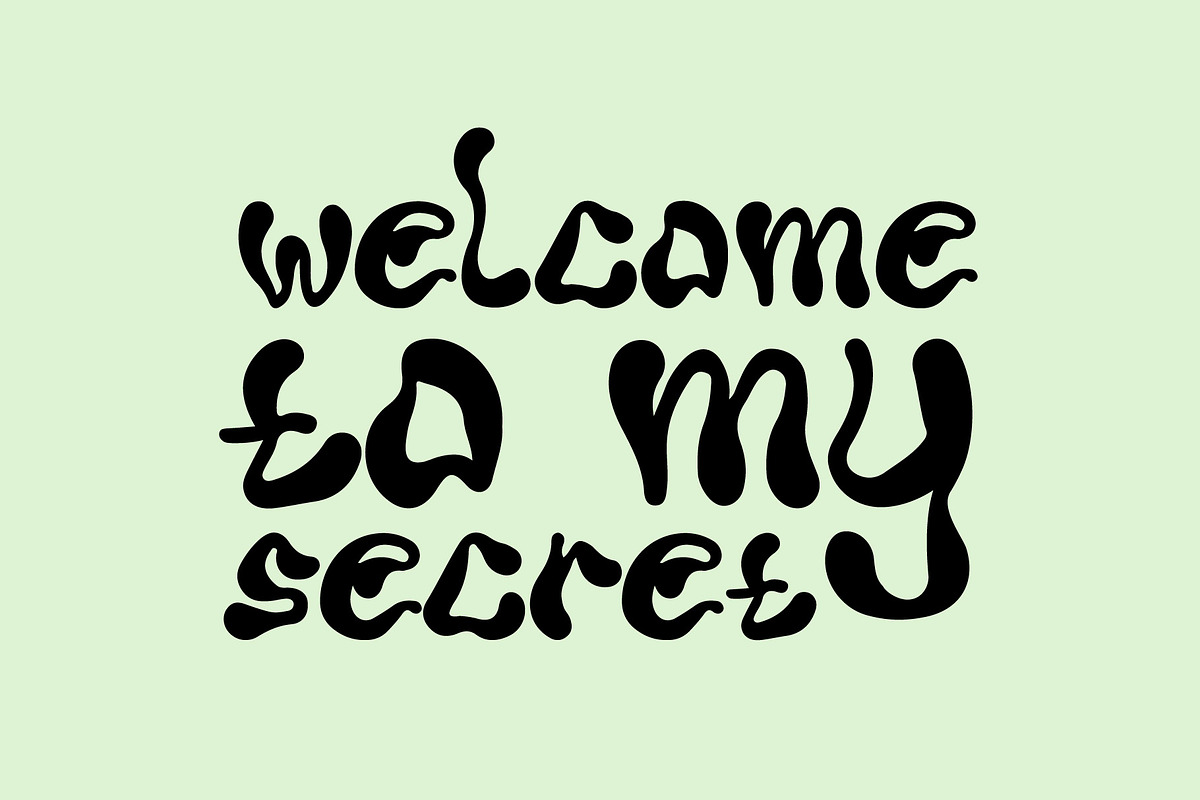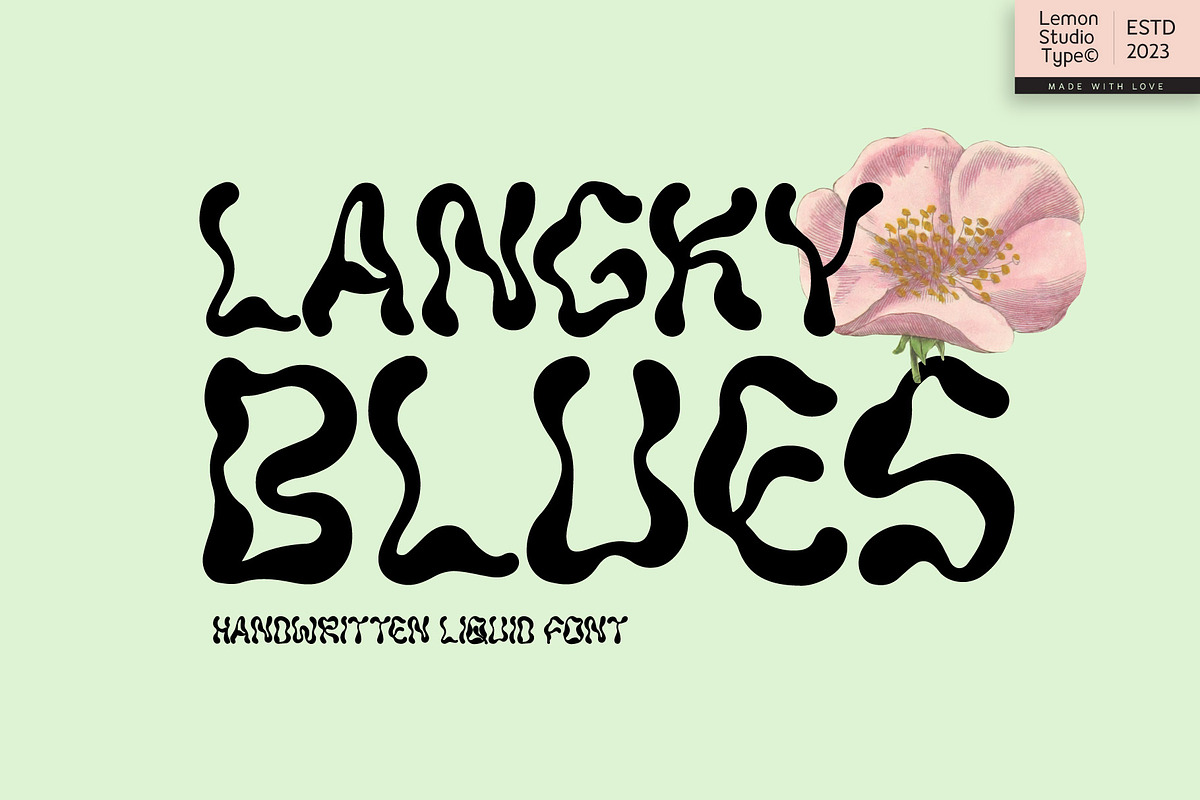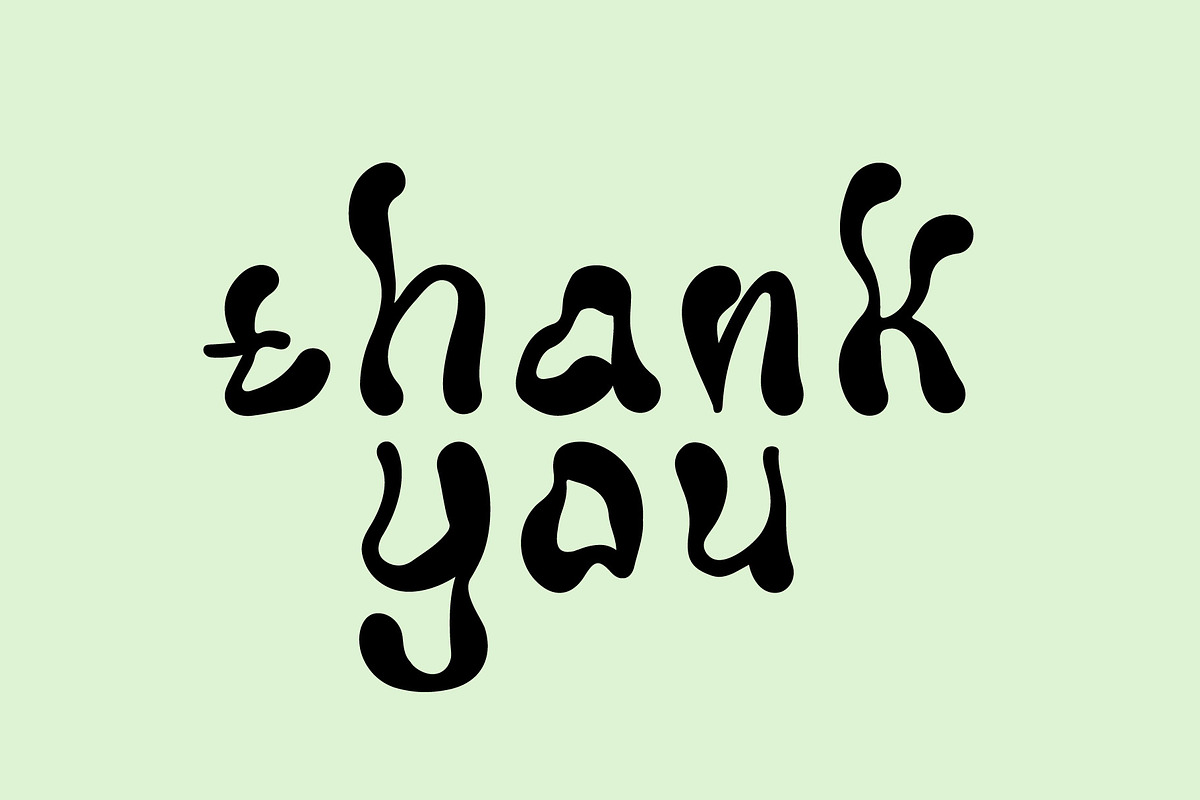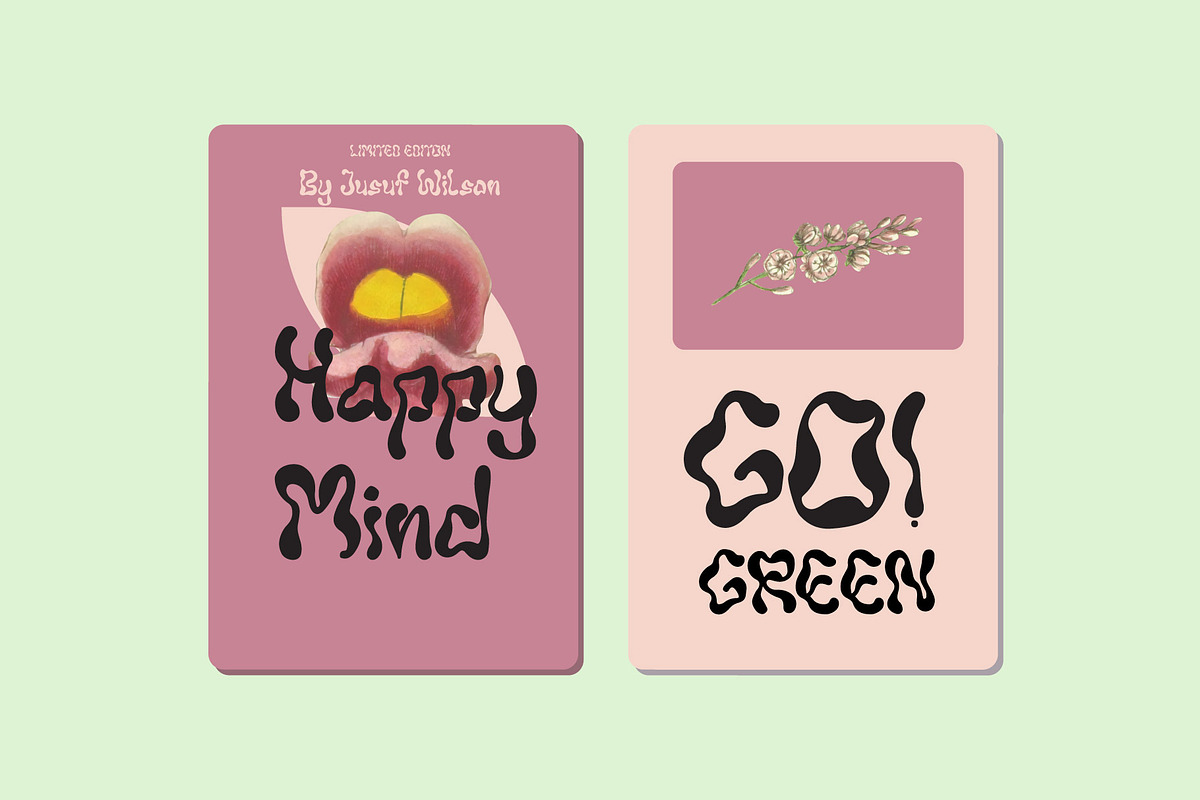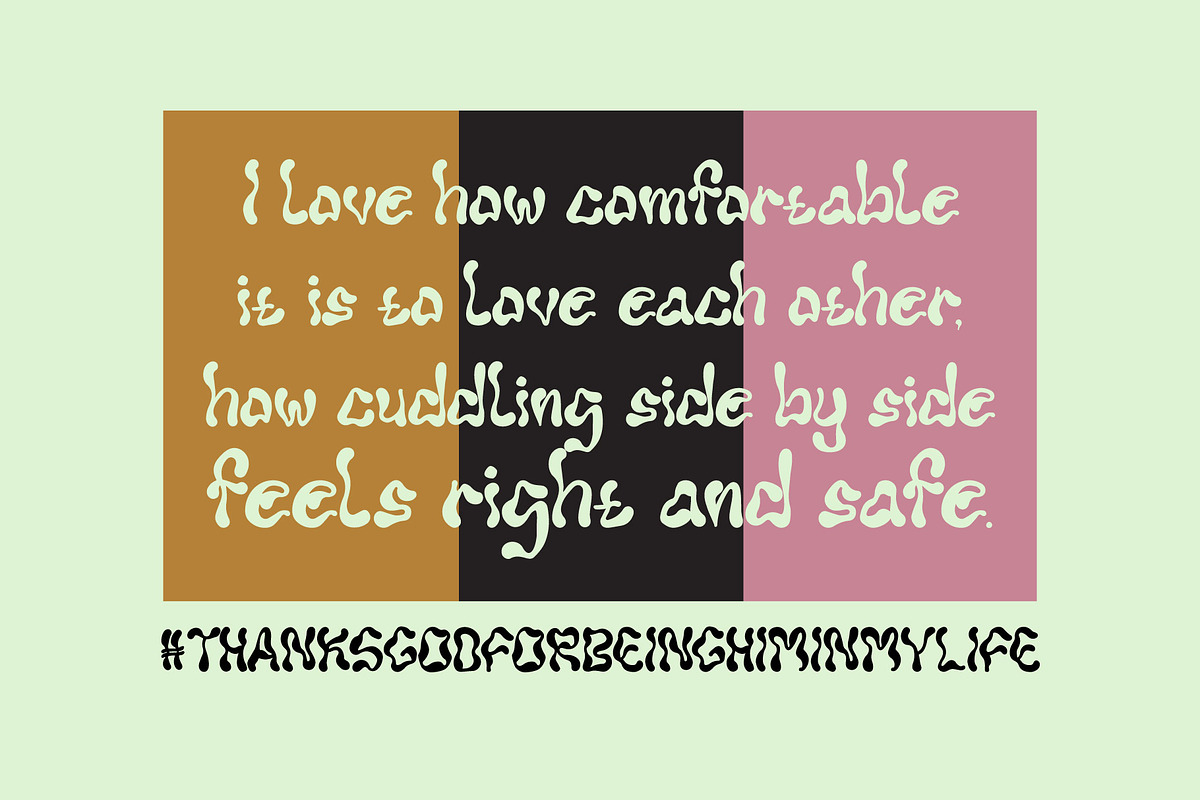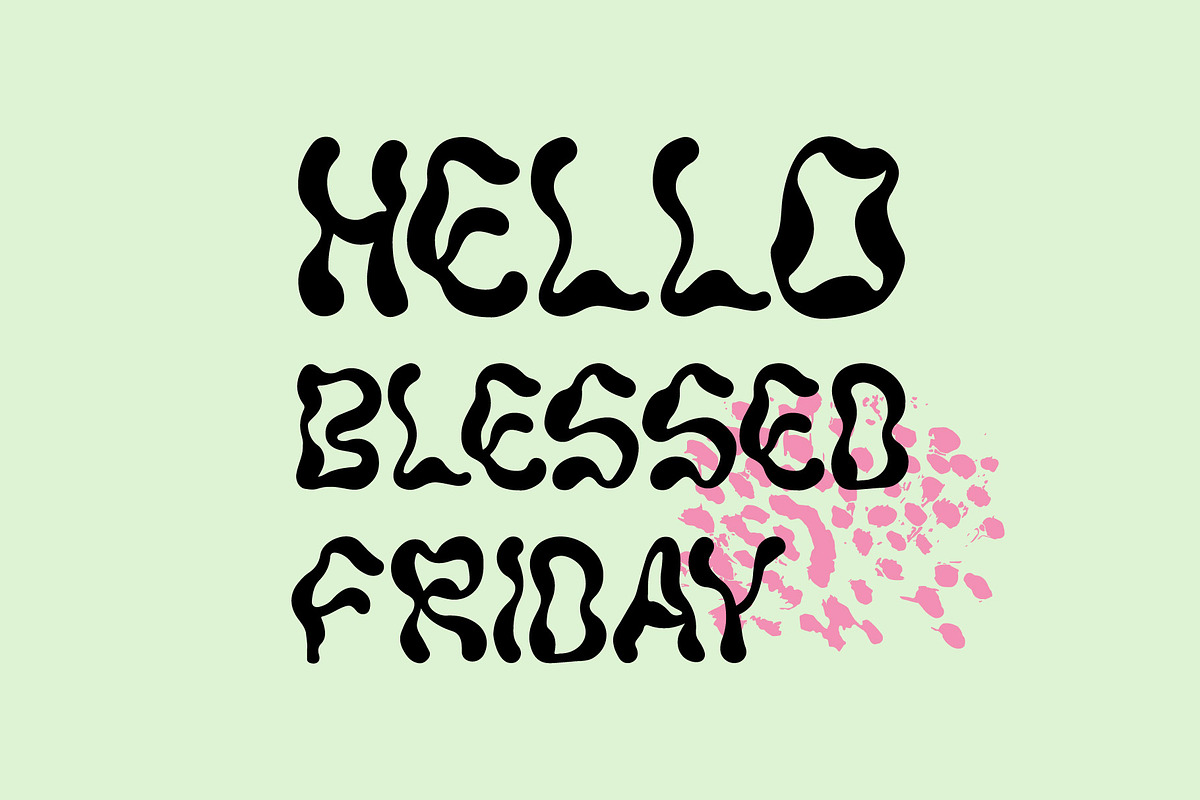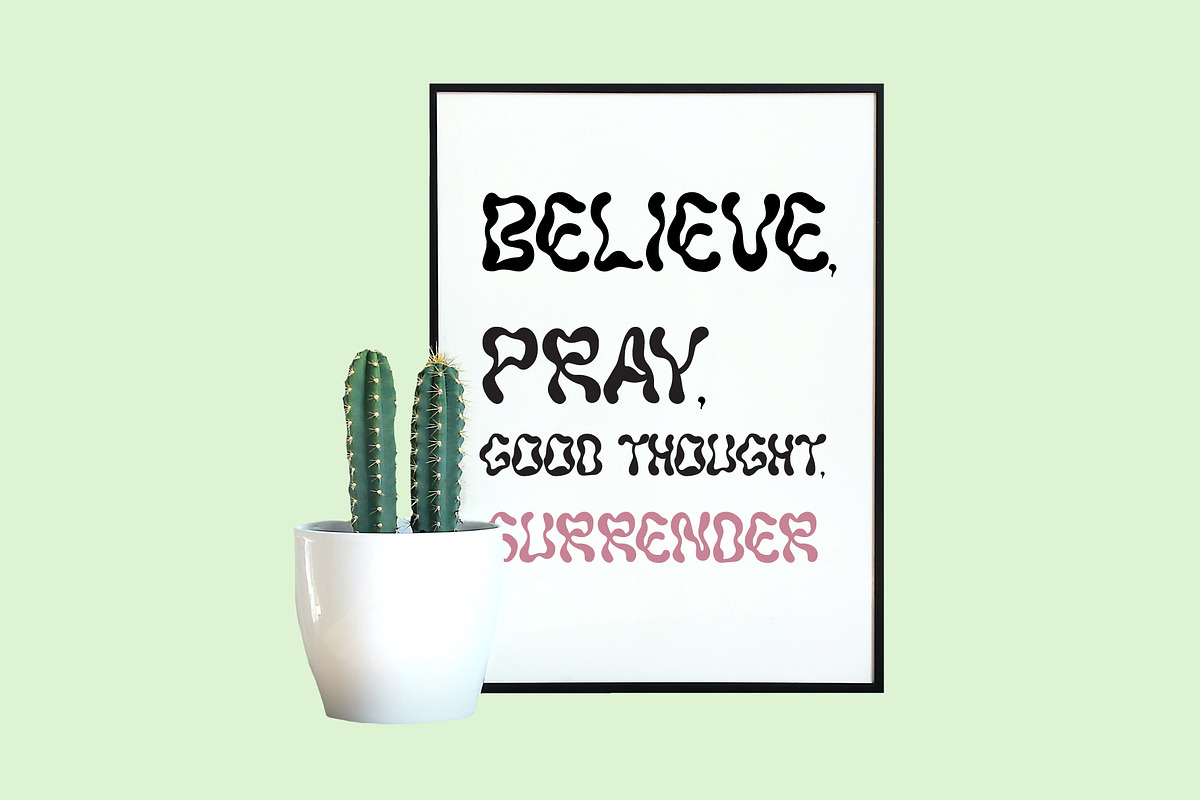
Langky Blues - Liquid Handwritten
Langky Blues is a liquid font full of all 26 characters for uppercase, lowercase, numbers and essential punctuation. it works perfectly to create big titles and headlines for any kind of artwork, like poster, design for merch, book cover, movie, and many more. You can create some great combinations with it.